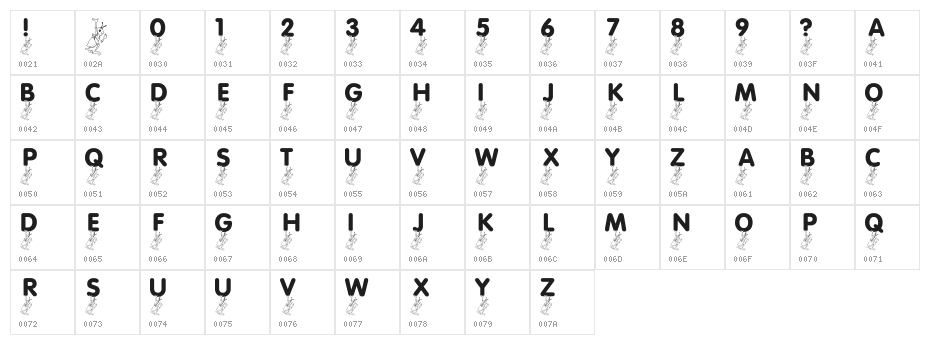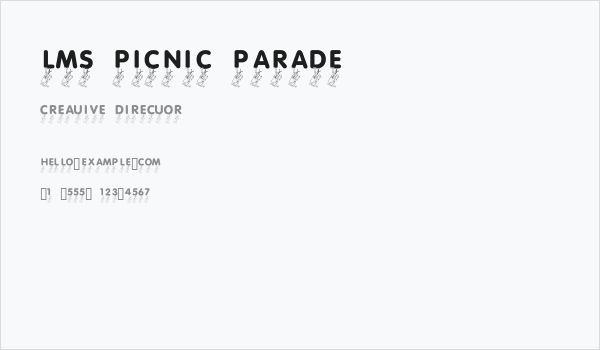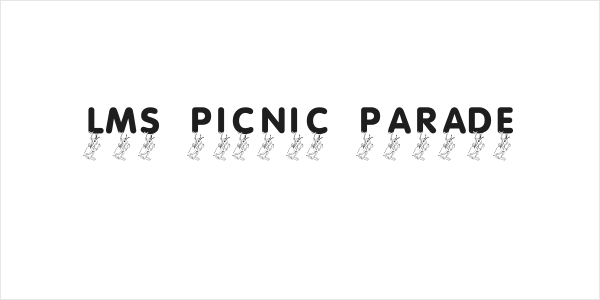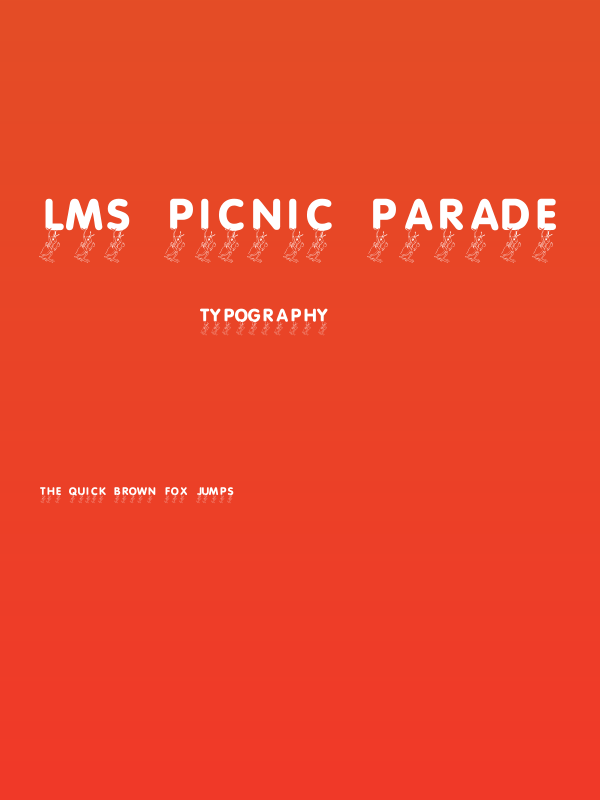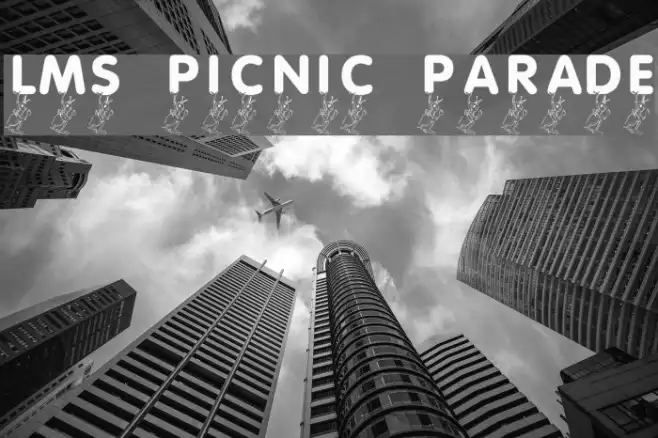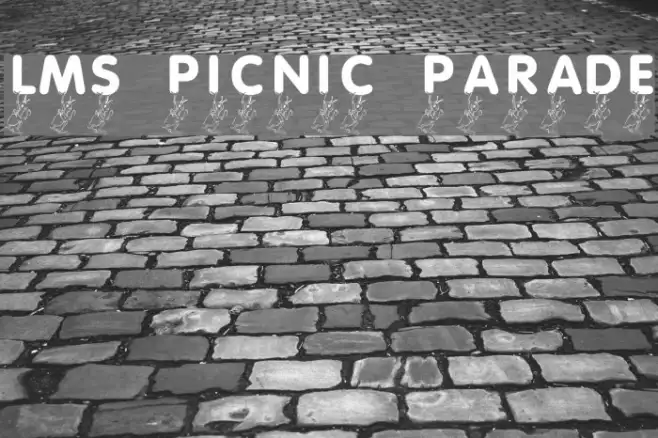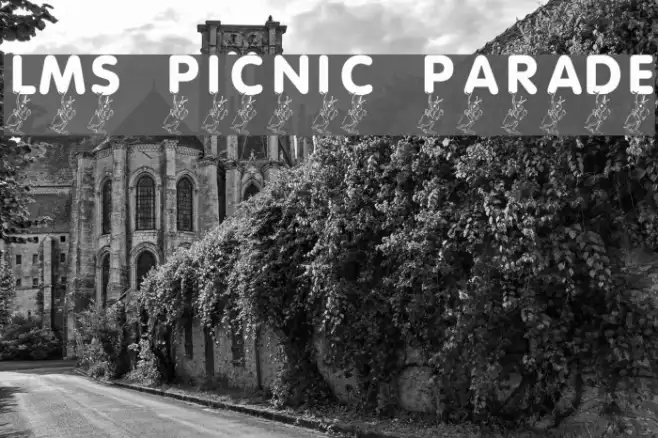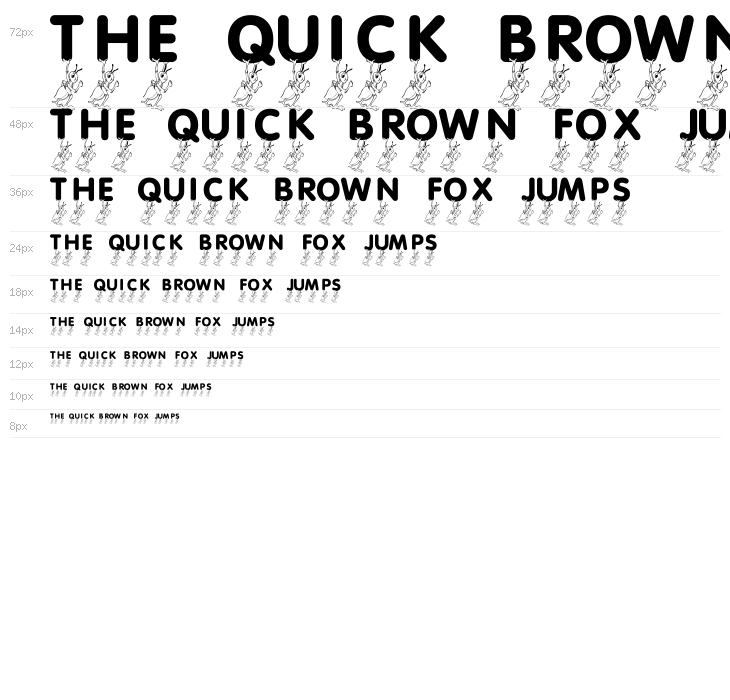
LMS Picnic Parade Font
LMS Picnic Parade Description
This font features a playful and bold style, characterized by its rounded edges and thick strokes. The letters are uniformly bold, providing a strong visual impact. The font includes both uppercase and lowercase letters, as well as numbers and a limited set of special characters. Its design is simple yet effective, making it suitable for a variety of creative projects. The consistent thickness of the strokes gives it a modern and friendly appearance, while the rounded forms add a touch of softness and approachability.
| Overall Style | Playful, Modern |
| Proposed Projects | Ideal for children's books, playful branding, posters, and casual invitations. |